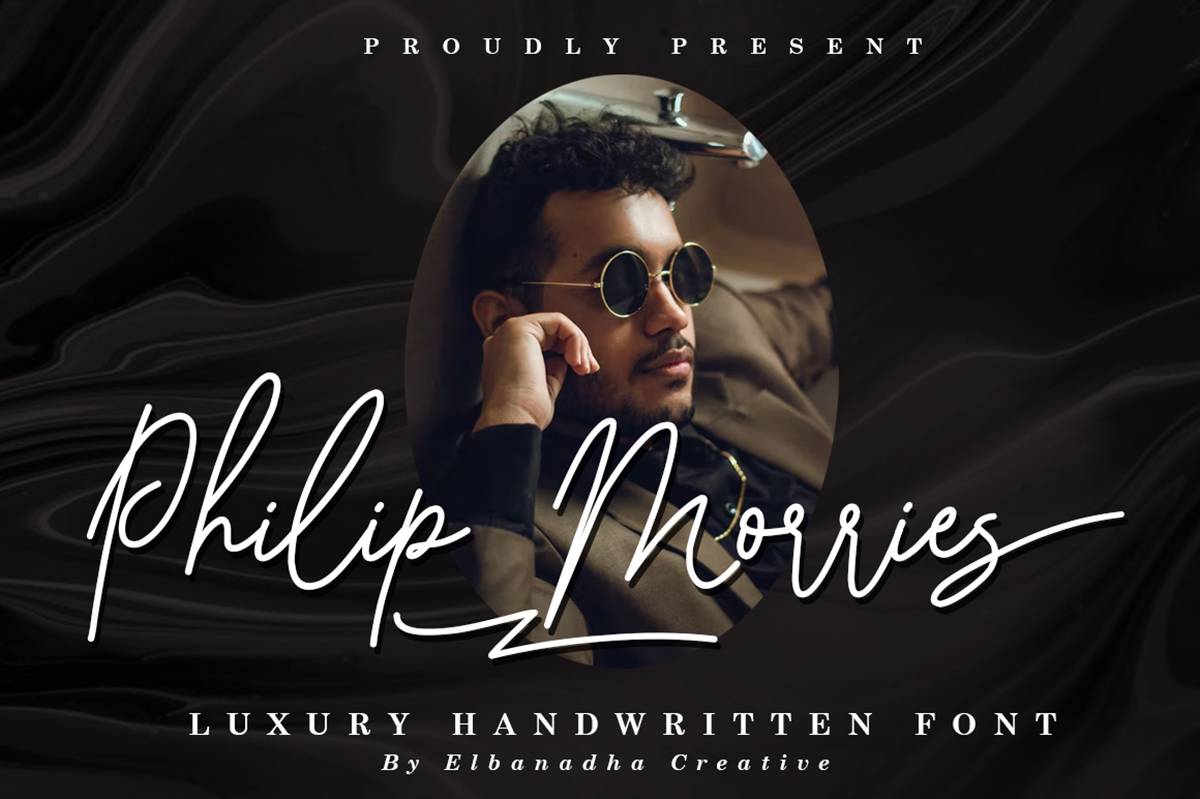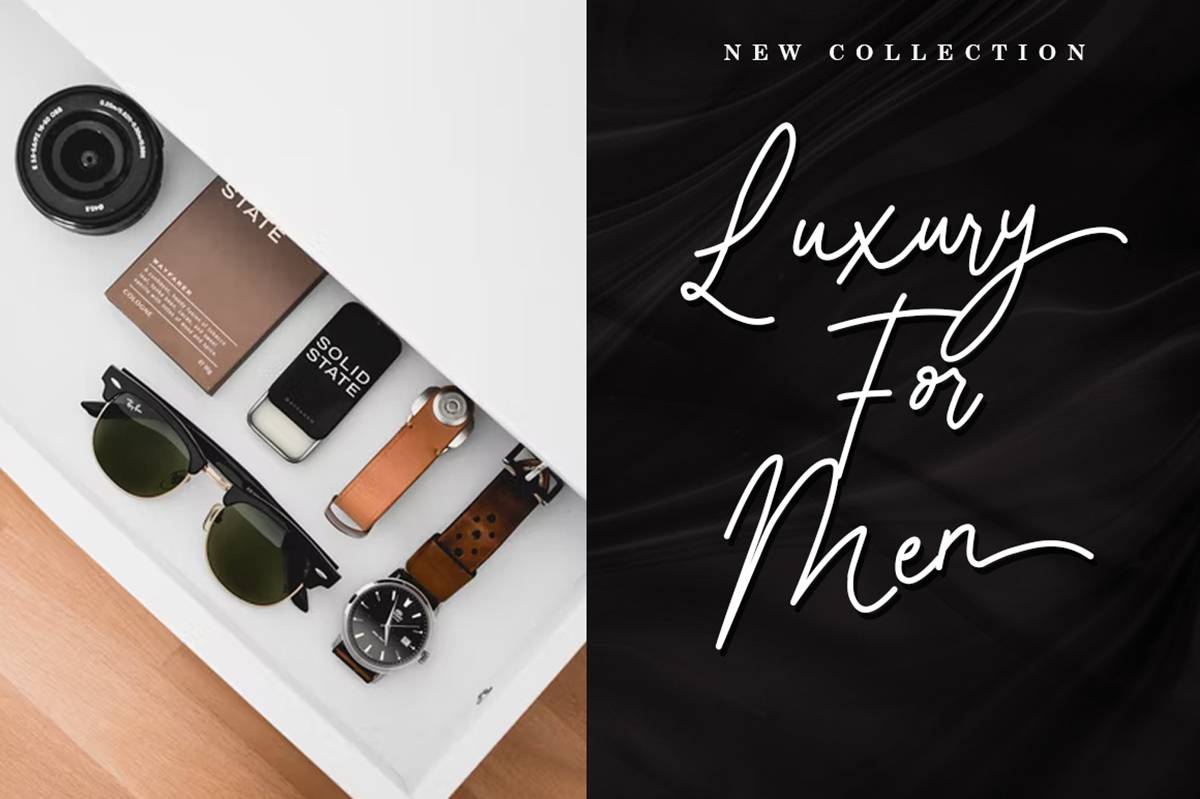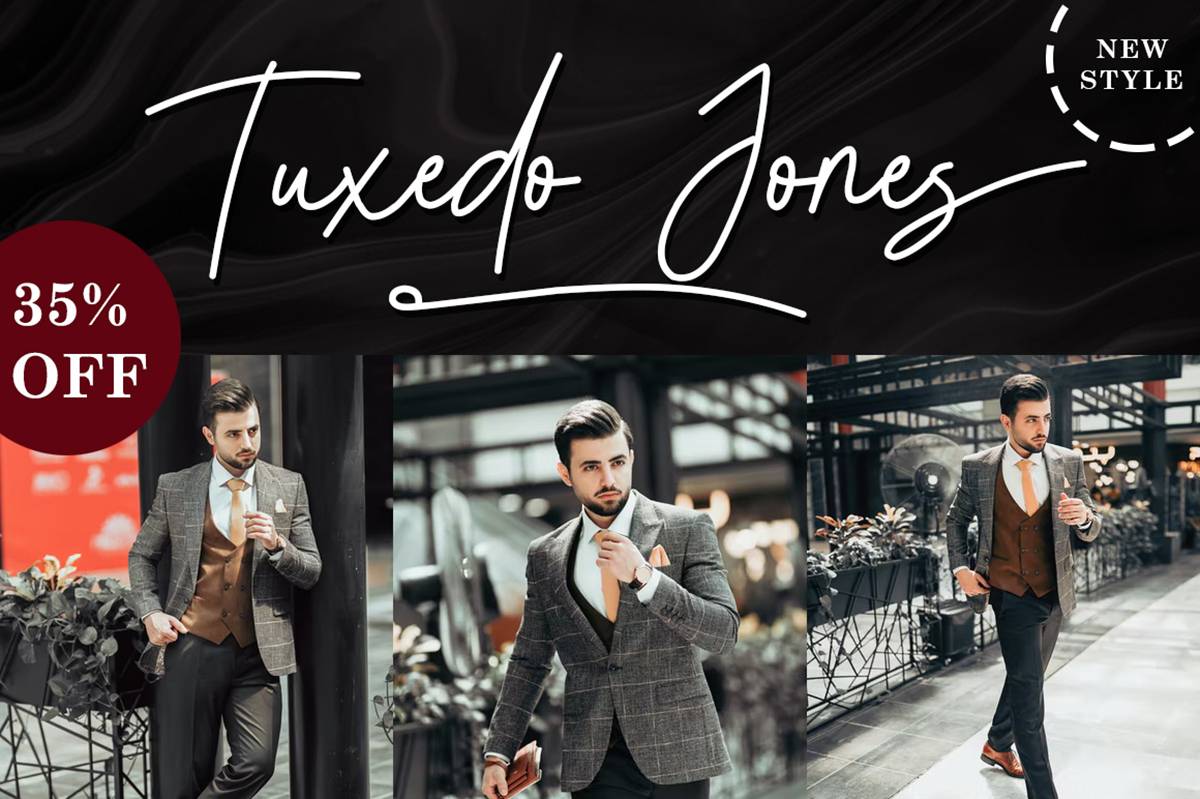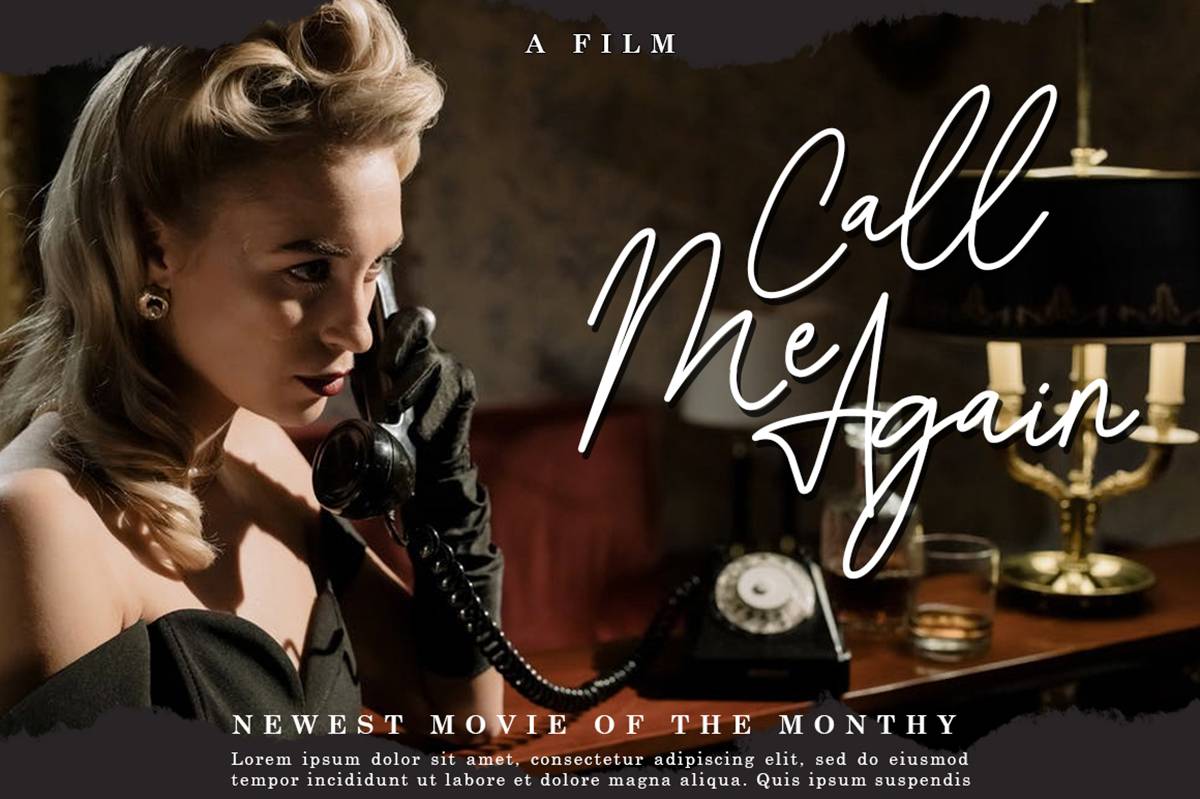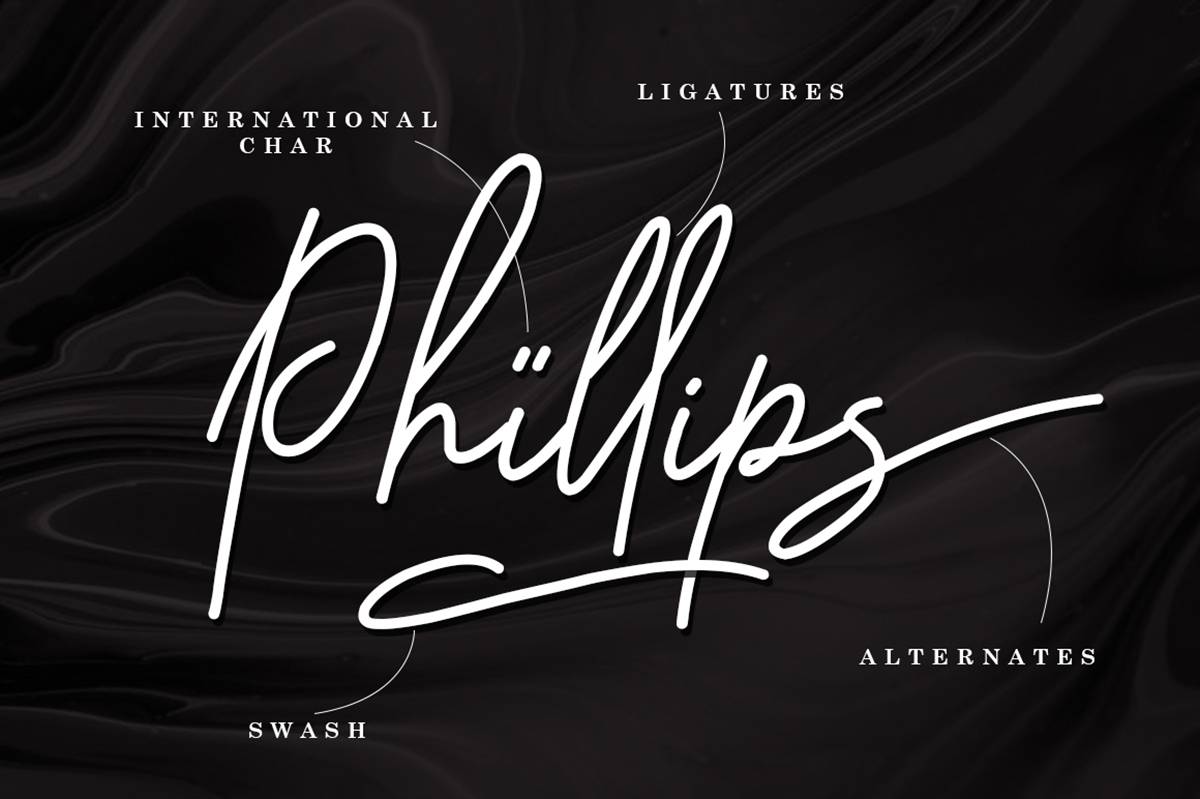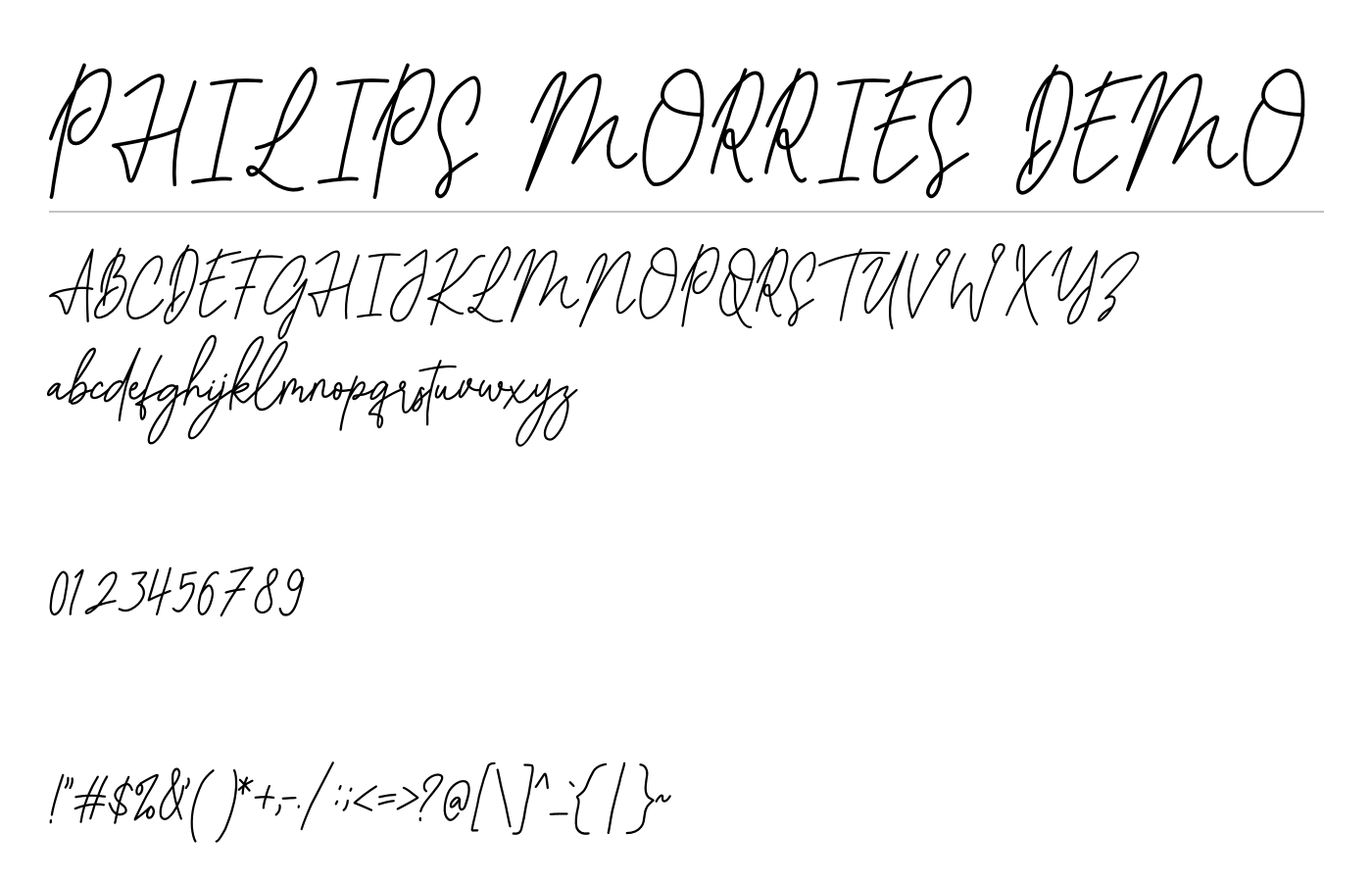
Philip Morries is a slender, elegant script font with a handwritten feel, featuring tall, narrow letterforms and delicate, fluid strokes. Its light, airy style makes it perfect for adding a personal and sophisticated touch to invitations, branding, or editorial designs where a modern, graceful aesthetic is desired. This font works well in situations that call for a refined yet approachable look, balancing legibility with artistic flair.
Philip Morries Font
About Philip Morries Font